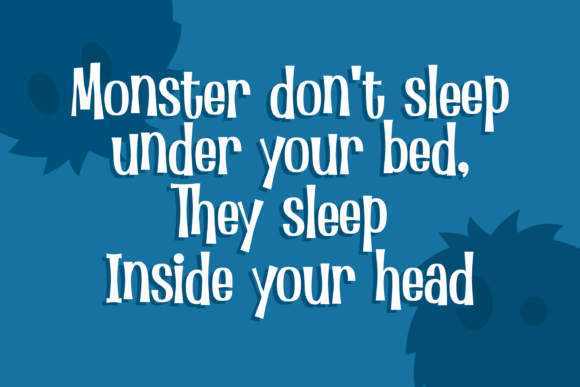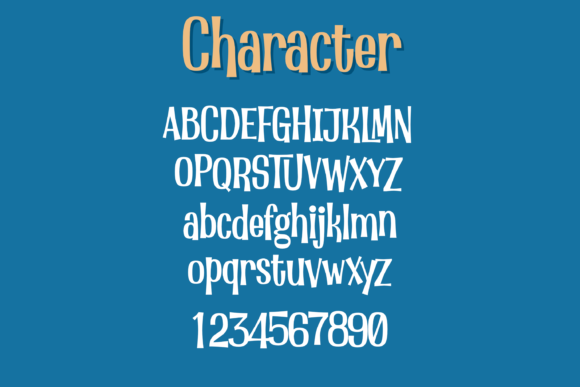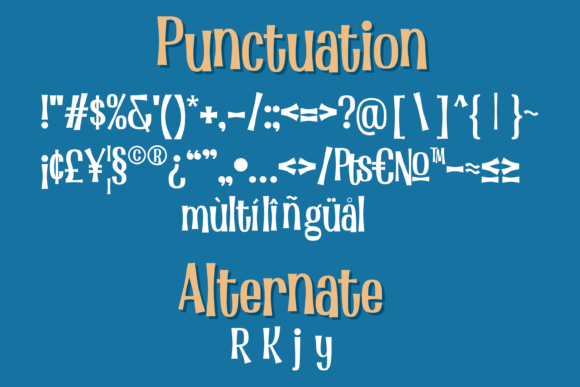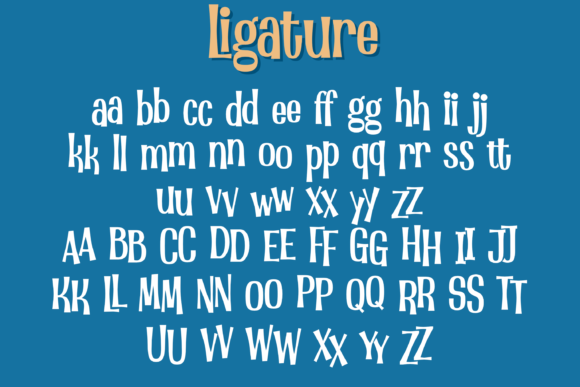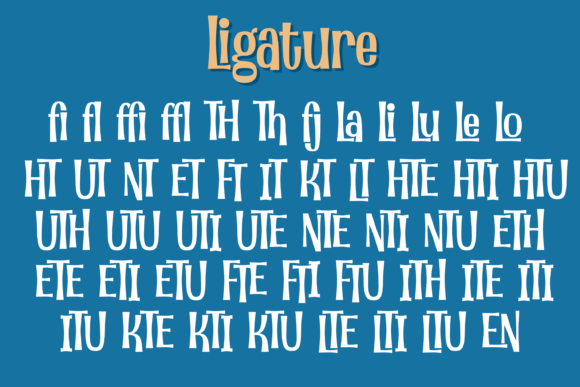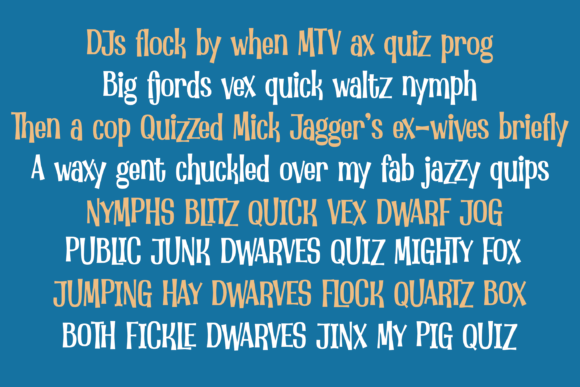
Introduction to Little Monster Font
As a designer, have you ever been stuck on a creative project and wished for a font that could bring your ideas to life? Perhaps you’re working on a children’s book and want a font that’s both fun and engaging. Or maybe you’re looking for a way to add some personality to your social media posts. Whatever your project, you’re in luck because we’re about to introduce you to a font that’s sure to become your new best friend: the Little Monster Font.
This playful display font is perfect for designers who want to add a touch of whimsy to their high-quality designs. With its transparent background and free download option, it’s a valuable resource for any creative project. And with PUA encoding, you can access all of the glyphs and swashes with ease, making it a breeze to customize and personalize your designs.
Key Features of Little Monster Font
- High-quality, hand-drawn design for a creative project or illustration
- Unique characteristics include playful, whimsical style and intricate details for a fun, childlike feel
- Perfect for use in children’s book illustrations, educational materials, or any creative project requiring a fun, monster-themed design
Honest Review: Little Monster Font
I recently had the chance to work with the Little Monster Font, and I’m excited to share my honest thoughts. This font is perfect for any creative project where you want to add a playful touch. The free download option is a huge plus, making it a valuable design resource for any designer.
- ✨ High-quality design: The Little Monster Font is incredibly detailed and well-designed, making it a great addition to any project.
- ✨ Versatile: This font can be used for a variety of projects, from children’s books to advertising materials.
- ✨ Transparent background: The font’s transparent background makes it easy to use with any design element.
One thing to note is that the font may not be suitable for all projects. The playful nature of the font can sometimes be overwhelming, especially for more formal or professional designs. ⚠️ Additionally, the font may not be compatible with all software or operating systems.
Overall, I’m impressed with the Little Monster Font. Its high-quality design and versatility make it a valuable design resource. While it may have some limitations, I would highly recommend it for any creative project where you want to add a playful touch.
Tips for Getting the Most Out of Little Monster Font
Use the Little Monster Font in combination with other design elements to create a unique and high-quality design. Experiment with different font sizes, colors, and styles to find the perfect look for your project. Consider using the font in a creative project, such as a children’s book or a graphic novel.
The Little Monster Font is a versatile design resource that can be used in a variety of applications, including logos, business cards, and social media graphics. Its high-quality design and transparent background make it perfect for use in creative projects, such as animations and video titles.